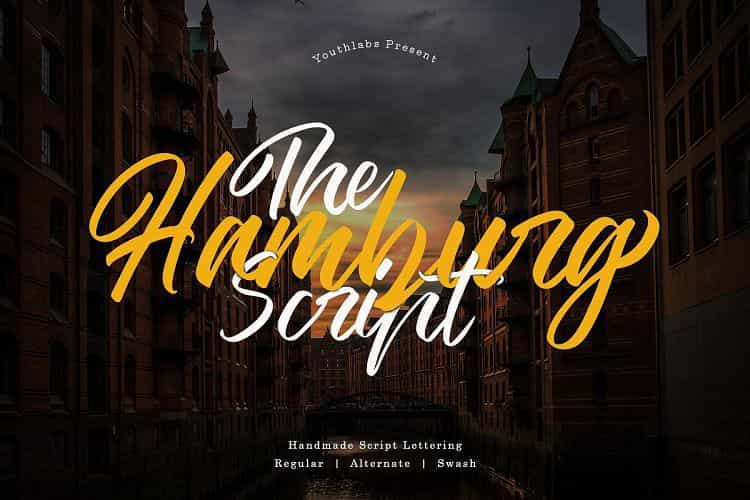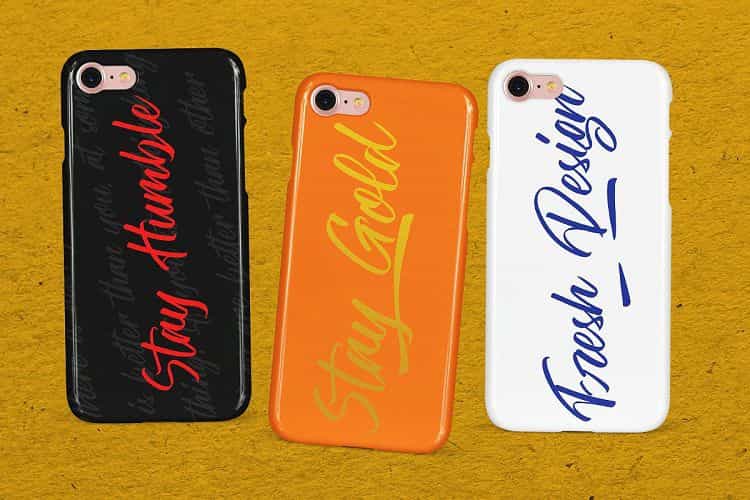
Introducing Hamburg Font. The Hamburg Script Font is a font that was created by traditional script calligraphy using brush pen. This font is totally hand-made with the use of a brush pen scratch. it would be perfect for any kind of design. The Hamburg would be just ideal for photography, watermarks, social media posts, advertisements, logos & branding, invitations,, product designs label stationery , wedding designs and so on.